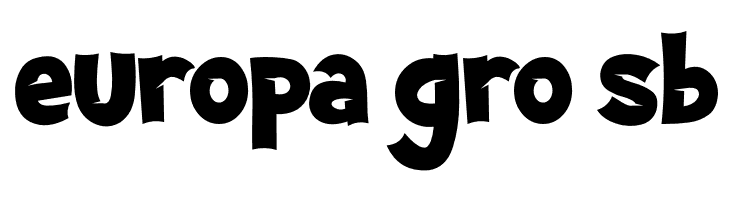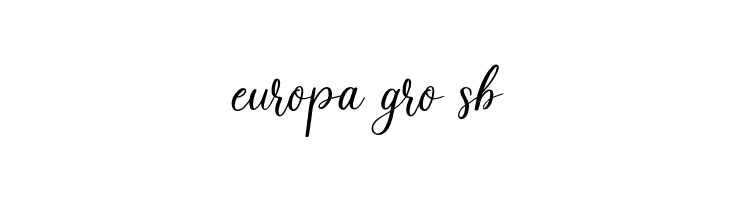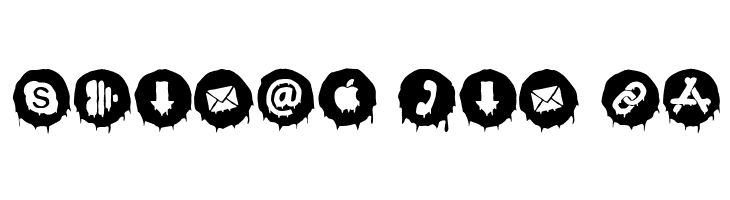
A dripping, horror-themed font ideal for spooky designs.
A playful, hand-drawn font with bold, rounded characters and a whimsical style.
A bold, brush-style font with dynamic, hand-painted strokes.
A horror-themed font with dripping, eerie characters.
A jagged, eerie font ideal for horror themes and Halloween designs.
A bold, eerie font with vine-like extensions, perfect for spooky themes.
A playful, hand-drawn font with a whimsical and slightly spooky style.
A playful, hand-drawn font with a whimsical, ghostly appearance.
A graceful and artistic script font with elegant loops and flourishes.
A whimsical and elegant script font with flowing, cursive letters.
A bold, angular font with a futuristic, geometric style.
A bold, dripping font perfect for spooky Halloween designs.
A bold, jagged font with a chilling, horror-themed aesthetic.
A jagged, eerie font perfect for horror themes.
A whimsical and eerie font with elongated, narrow strokes.
A bold, playful font with a spooky, hand-drawn style.
A bold, spooky font with a blocky, eerie design ideal for Halloween themes.
An intricate, gothic-style font with dramatic flourishes and sharp edges.
A jagged, horror-themed font with rough, textured characters.
A bold, jagged font with a rugged and aggressive style.
A playful, spooky font with bold, irregular characters and a Halloween theme.
A varied set of horror-inspired display fonts with dramatic and eerie styles.
A diverse set of horror-inspired decorative display fonts with dramatic and eerie styles.
A dynamic, handwritten-style font with expressive, fluid strokes.
A jagged, distressed font ideal for horror themes.
A spooky, dripping font ideal for Halloween themes.
A bold, textured font with a spooky, hand-drawn appearance.
A spooky, decorative font with scratchy, uneven strokes.
Dripping, horror-themed icon font for social media and web symbols.
A spooky, dripping font perfect for horror themes.
A jagged, eerie font perfect for horror themes.
A bold, playful font with exaggerated curves and sharp angles, perfect for eye-catching designs.
A bold, hand-drawn font with a vintage, rustic style.